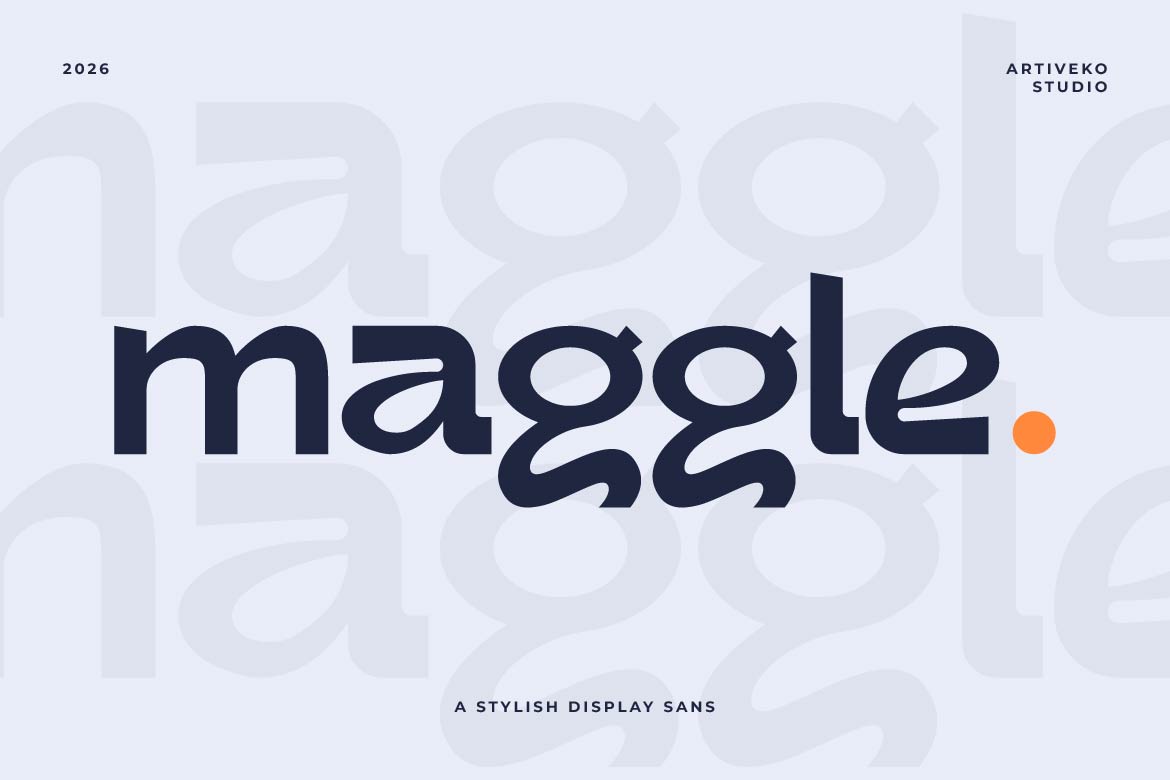
- Maggle – Professional Branding Font
Maggle is a modern branding logo font designed to create memorable identities with confidence and simplicity. Featuring clean letterforms, balanced proportions, and distinctive character details, Maggle delivers a professional yet creative aesthetic that helps brands stand out in today’s competitive market.
Perfect for logo design, visual identity systems, packaging, business cards, websites, social media, signage, and marketing materials, Maggle is built to perform across every branding application. Its modern construction offers outstanding readability while maintaining a unique personality that enhances brand recognition.
Whether you’re designing for startups, creative agencies, fashion labels, cafés, technology companies, or lifestyle brands, Maggle provides a versatile typographic solution that feels timeless, premium, and highly adaptable.
Maggle isn’t just a font—it’s the foundation of a memorable brand identity.